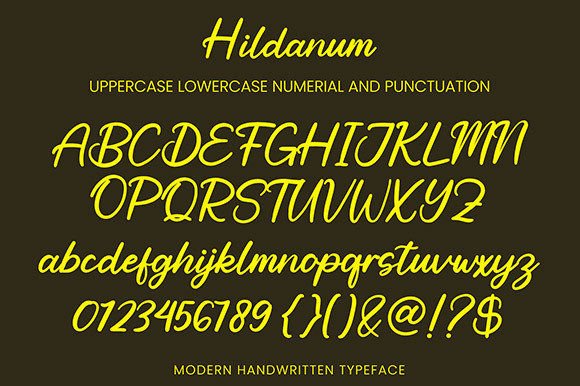
Introduction to Hildanum Font
As designers, we’ve all been there – staring at a blank canvas, trying to find the perfect font to bring our creative project to life. The search is over, and we’re excited to introduce you to the Hildanum Font, a charming and elegant handwritten script font that’s sure to elevate your designs. Its flowing, natural strokes create a sense of warmth and closeness, making it perfect for designs that require a personal and authentic touch.
With its high-quality design and versatility, the Hildanum Font is an invaluable resource for designers. Whether you’re working on a branding project, creating packaging, or designing invitations, this font is sure to add a touch of sophistication and style. Plus, with a transparent background, it’s easy to layer and manipulate to achieve the perfect look for your design.
Key Features of Hildanum Font
- High-quality design resource suitable for various creative projects
- Designed with a unique aesthetic, making it an ideal choice for projects that require a touch of elegance and sophistication
- Supports a wide range of languages and characters, including Latin, Cyrillic, and Greek alphabets
- Font size: varies, with multiple font weights and styles available for customization
Honest Review: Hildanum Font
As a designer, I’ve had my fair share of using fonts in my creative projects. Recently, I stumbled upon the Hildanum Font, and I must say, it’s been a game-changer for me.
- High-quality design: The Hildanum Font is beautifully crafted with a lot of attention to detail, making it perfect for any design project.
- Transparent background: The font’s transparent background makes it easy to use in a variety of design scenarios, from website headers to social media graphics.
- Limited font variations: While the Hildanum Font is stunning, it’s a bit limited in terms of font variations, which might not be ideal for designers who want more options.
- Not ideal for body text: Due to its unique design, the Hildanum Font might not be the best choice for body text, but it’s perfect for headings and titles.
Overall, I’m thoroughly impressed with the Hildanum Font. Its high-quality design, free download, and transparent background make it a valuable design resource. While it has its limitations, it’s a great choice for creative projects that require a unique and eye-catching font.
Tips for Getting the Most Out of Hildanum Font
For optimal results, use the Hildanum Font in combination with other design elements that complement its unique style. Experiment with different font sizes, colors, and layouts to create a visually appealing design. You can also use the font in creative projects such as logo design, branding, and marketing materials.
The Hildanum Font is suitable for a variety of creative projects, including logo design, branding, marketing materials, and presentations. Its unique style and high-quality design make it an ideal choice for designers looking to add a touch of elegance and sophistication to their work.